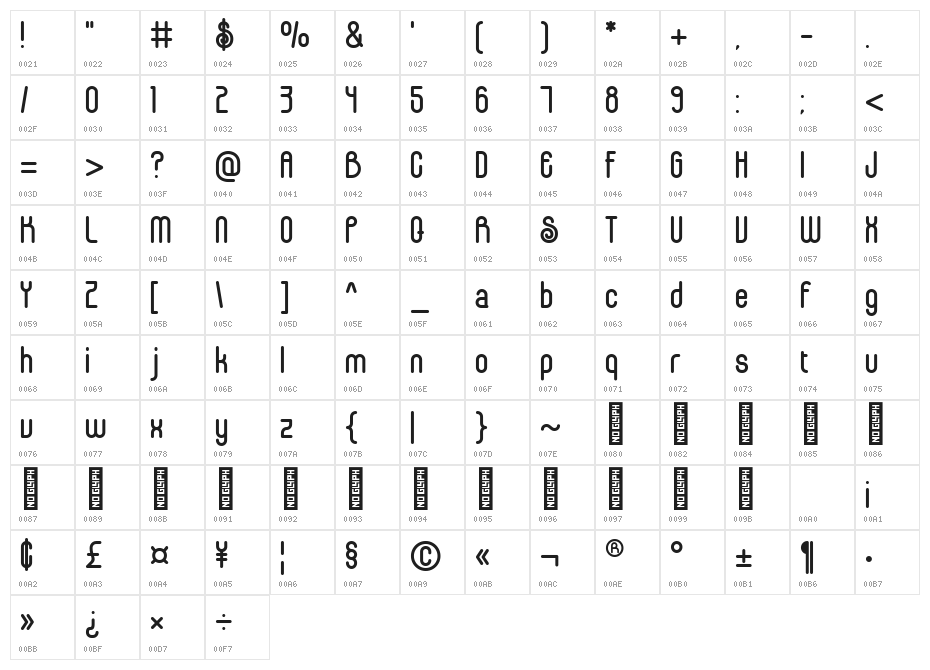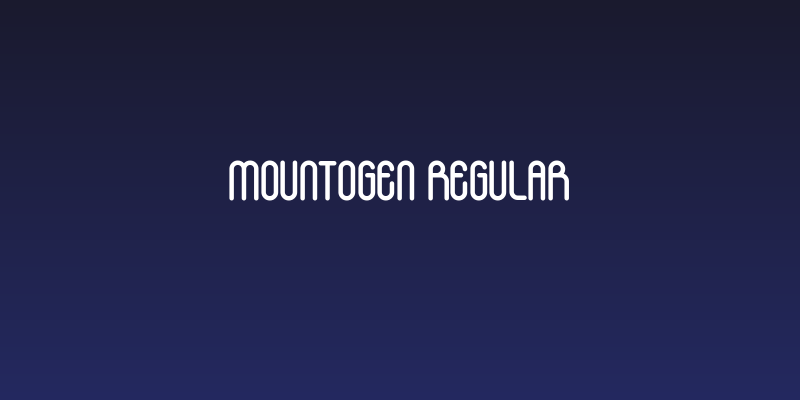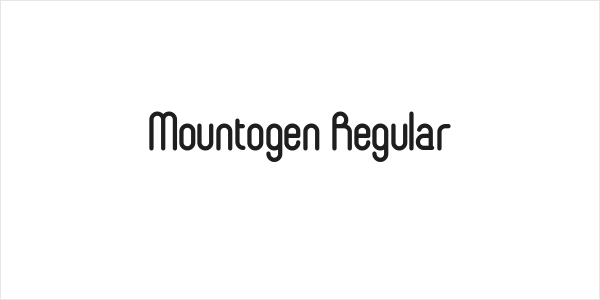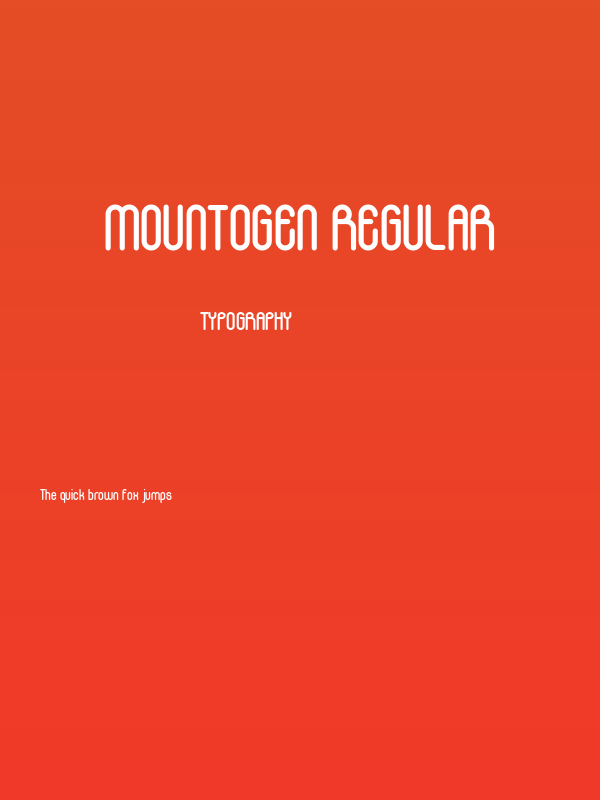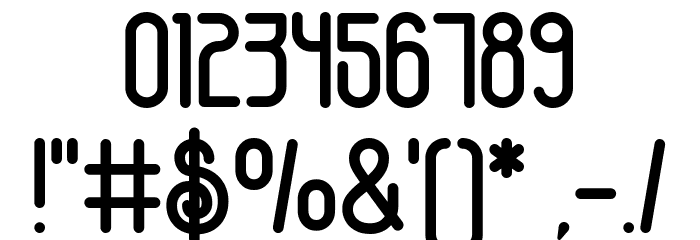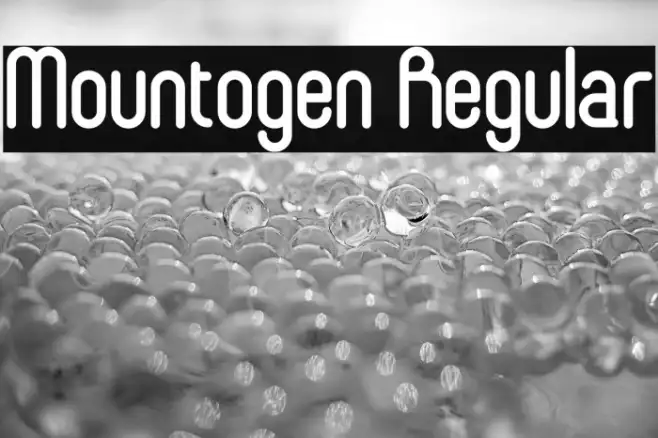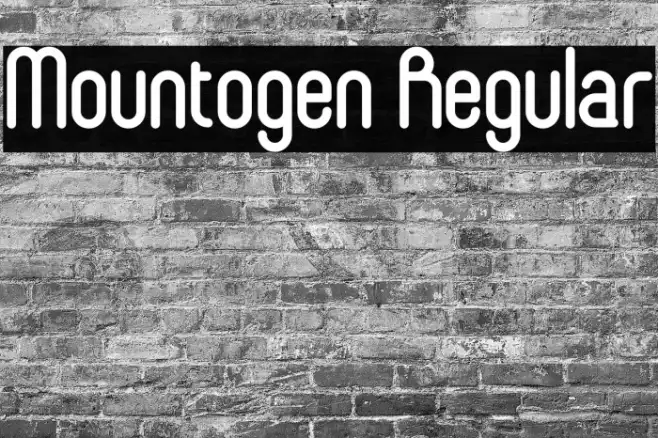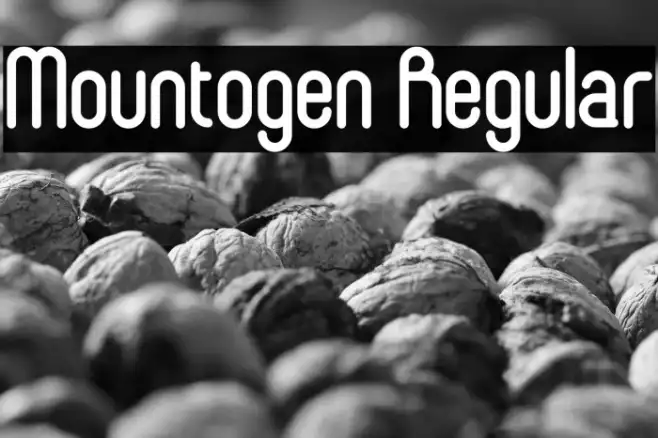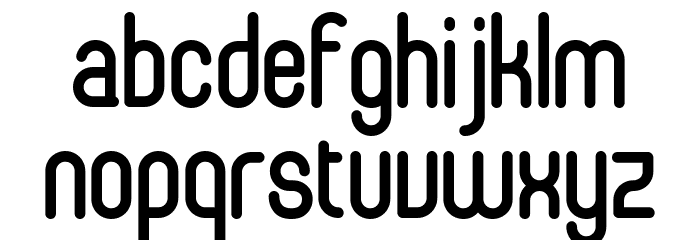
Mountogen Regular Font
Mountogen Regular Description
This font features a unique and playful design with rounded, tubular letterforms that create a sense of continuity and flow. The uppercase letters are bold and structured, while the lowercase letters maintain a consistent style with slightly more curvature, especially noticeable in characters like 'g' and 's'. The numbers and special characters follow the same rounded aesthetic, providing a cohesive look across all glyphs. The font's distinct style is both modern and retro, making it versatile for various creative applications. Its boldness and rounded edges give it a friendly and approachable feel, suitable for projects that require a touch of whimsy and creativity.
| Overall Style | Modern, Retro |
| Proposed Projects | Ideal for branding, posters, children's books, and creative digital content. |